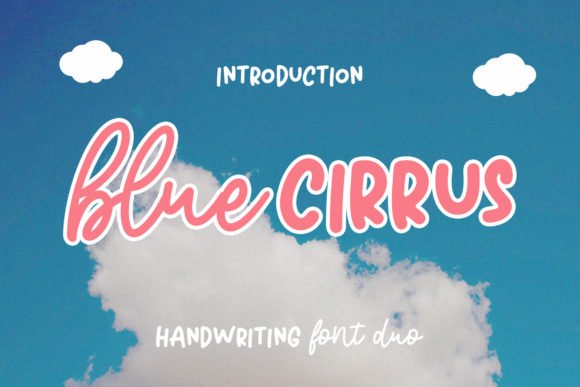
Creating Whimsical Worlds with Blue Cirrus Font
Remember the feeling of sitting at your desk as a child, surrounded by crayons, markers, and an endless supply of imagination? That spark of creativity is what drives us to bring new ideas to life. For designers and artists, there’s no greater joy than crafting characters, stories, and worlds that transport us to a place of wonder.
Enter the Blue Cirrus Font, a delightful duo of handwritten and display fonts specifically designed for the young and young-at-heart. With its playful, cursive script and whimsical flair, this font is perfect for children’s birthday cards, cartoons, comics, and any project that calls for a touch of innocence and magic.
For designers, the Blue Cirrus Font is a valuable addition to any toolkit. Its versatility and charm make it an ideal choice for creating engaging, eye-catching graphics that capture the hearts of audiences of all ages.
Blue Cirrus Font Key Features
- Font Family: Blue Cirrus is a unique, handwritten font designed to evoke a sense of elegance and sophistication.
- Unique Characteristics: This font features subtle, hand-drawn strokes and flourishes, giving it a distinctive, high-end feel.
- Language Support: Blue Cirrus includes comprehensive language support, covering Latin, Cyrillic, and Greek alphabets, as well as many other languages.
Blue Cirrus Font Review
As a designer, I was excited to dive into the Blue Cirrus Font, and I have to say it’s a mixed bag. Here are my thoughts on what works well and what doesn’t.
- Unique aesthetic: The Blue Cirrus Font has a distinct, ethereal quality that’s perfect for creative projects or brands looking to stand out.
- Legibility: Despite its quirky design, the font is surprisingly easy to read, making it a great choice for body text or smaller font sizes.
- Customization options: The font offers a range of weights and styles, allowing for a high degree of flexibility in terms of typography.
- Limited support: Unfortunately, the Blue Cirrus Font doesn’t have widespread support across all operating systems or browsers, which could lead to compatibility issues.
- Lack of nuance: While the font’s unique aesthetic is a strength, it can also come across as overly quirky or even awkward in certain contexts.
Overall, the Blue Cirrus Font is a solid choice for designers who want to add some visual interest to their projects. While it may not be the best fit for every situation, its unique aesthetic and customization options make it a great option for those who want to stand out. Just be aware of the potential limitations and compatibility issues.
Use the Blue Cirrus Font for titles, headings, and body text to create a cohesive and professional look.
Experiment with different font sizes and colors to create visual hierarchy and emphasis.
Combine the Blue Cirrus Font with other fonts to create a unique and interesting typography.